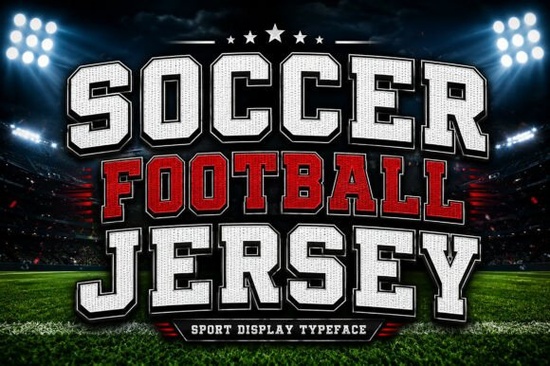
If you work on sports-themed designs, the Soccer Football Jersey Font is built to handle bold headlines, team branding, and merchandise layouts with a strong athletic look. It takes direct cues from the lettering you'd see on classic soccer and football jerseys blocky shapes, slab-serif details, and a sturdy feel that reads well at large sizes.
This font works especially well for print-on-demand sellers, small sports businesses, and anyone who needs type that communicates energy and competition without feeling overly playful or cartoonish.
What Makes a Good Jersey-Style Font for Sports Designs?
Jersey fonts share a few key traits: high contrast, wide letterforms, and strong visual weight. They need to be readable from a distance on a screen, on a shirt, or on a banner at a local tournament. The Soccer Football Jersey font delivers all of these qualities. Its block-style patterns give designs a grounded, professional presence, while the slab-serif elements add just enough detail to keep things from looking flat.
Compared to more traditional athletic typefaces like the ones you'd find in a legacy college font collection, this one leans more heavily into the modern sports jersey aesthetic. It feels contemporary without chasing trends that will date quickly.
What Can You Use the Soccer Football Jersey Font For?
This font is versatile across several design categories. Here are some practical applications:
- Team logos and branding local clubs, school teams, recreational leagues
- T-shirt and apparel designs especially for print-on-demand shops selling sports-themed merch
- Game title graphics video game interfaces, mobile app splash screens, or esports branding
- Headlines and posters event flyers, match-day promotions, social media banners
- Signage and banners for tournaments, fundraisers, or sports bars
If you're designing merchandise for platforms like Redbubble or TeePublic, a strong display font like this one helps your products stand out in crowded search results. The bold letterforms reproduce well on fabric, which matters when you're selling physical products.
How Does It Compare to Other Athletic Display Fonts?
There's no shortage of sporty typefaces on the market. The key difference with this one is its balance between blocky weight and clean readability. Some jersey fonts go too heavy and become hard to read at smaller sizes. Others look too thin to feel genuinely athletic.
The Soccer Football Jersey font sits in a practical middle ground. It pairs well with sans-serif body text and works in both uppercase and mixed-case layouts. If you already use fonts like college block display styles, this one fills a slightly different niche it's more specifically tied to the jersey aesthetic rather than the broader collegiate look.
For designers who build brand kits for sports teams or leagues, having access to multiple athletic styles matters. You might use a preppy varsity font for a lacrosse brand and this soccer jersey typeface for a football club. Each sport has its own visual language, and the right font helps you speak that language convincingly.
Does It Work for Non-Sports Projects?
Surprisingly, yes. Jersey-style fonts show up in music posters, urban fashion branding, and streetwear labels all the time. The bold, competitive energy translates well to any project that needs a confident, high-impact typeface. A display font with strong character like this can work outside its original context when paired thoughtfully with the right colors and layout.
Some crafters also use athletic fonts for party decorations, birthday banners, and themed event invitations particularly for sports-themed celebrations. If you sell SVG bundles or cut files, including a jersey-style font in your designs can increase their appeal to parents planning kids' sports parties.
Pairing Suggestions
To get the most out of this font, pair it with a clean, simple sans-serif for body copy. Think along the lines of a condensed sans for stats, dates, and secondary information. You might also explore bundling it with a display font bundle if you work across multiple sports or seasonal design projects.